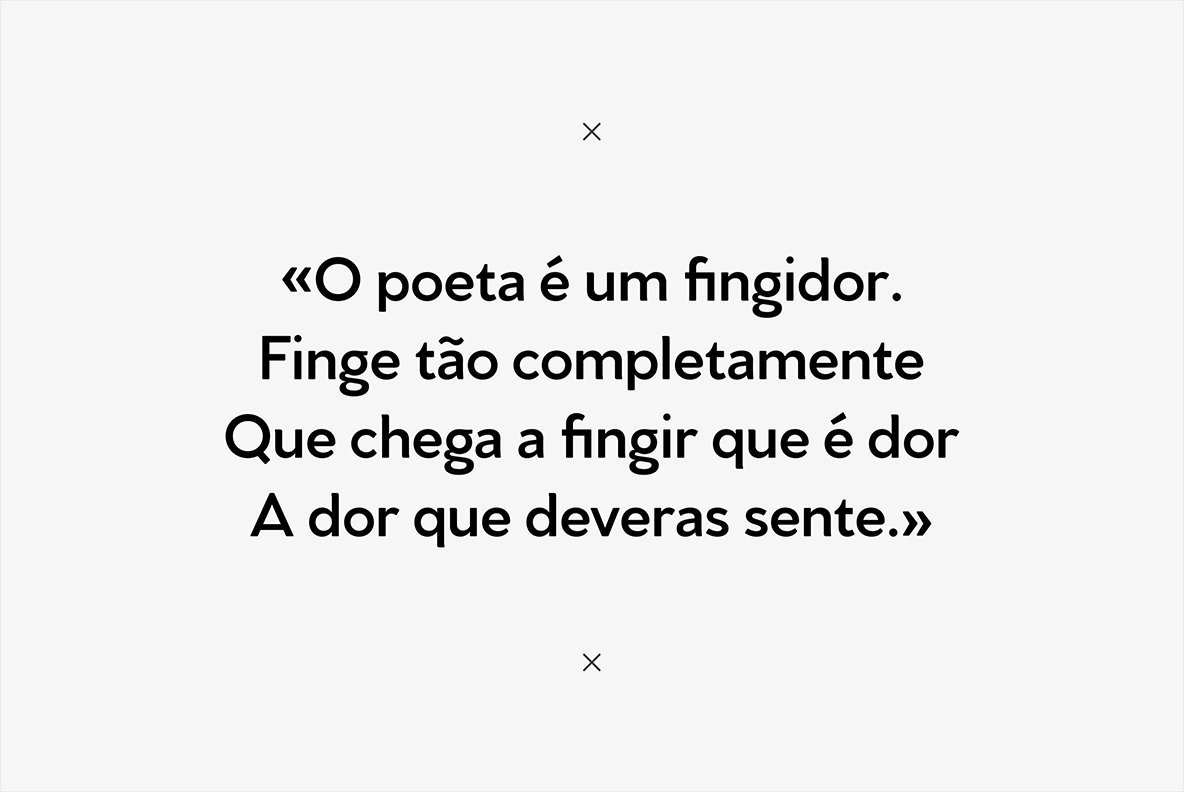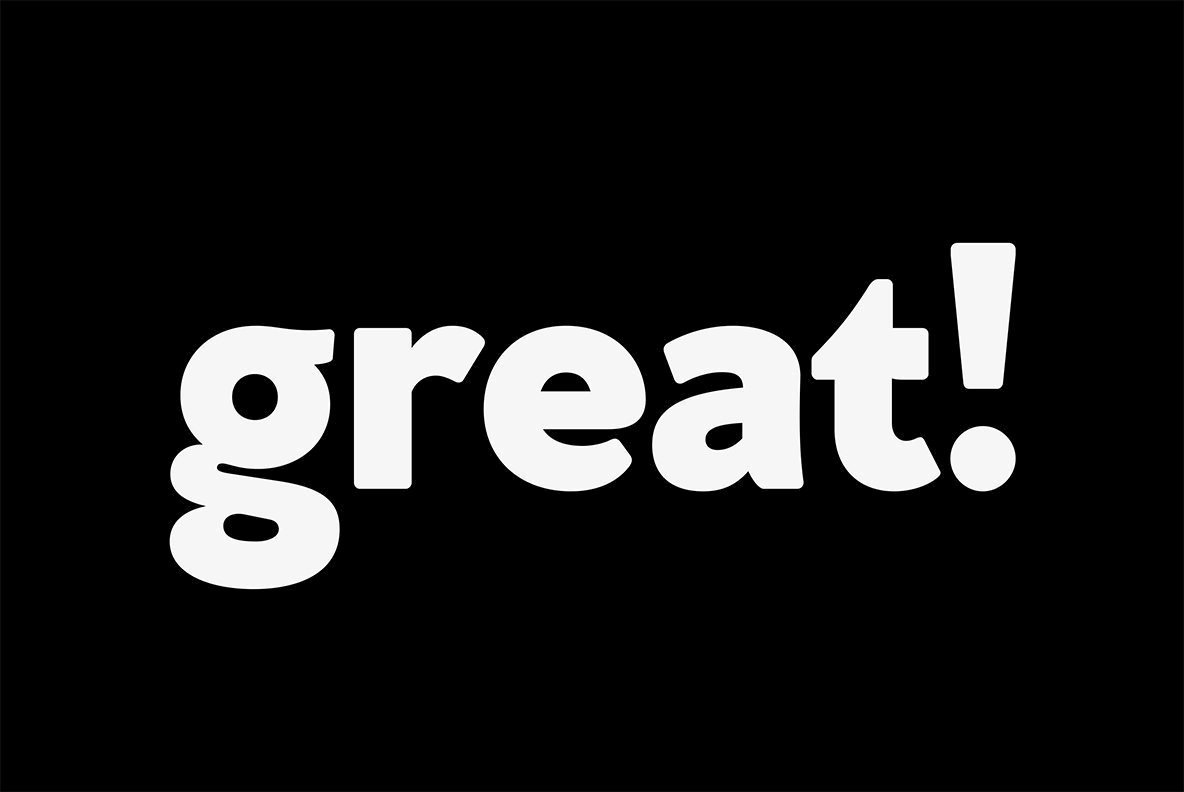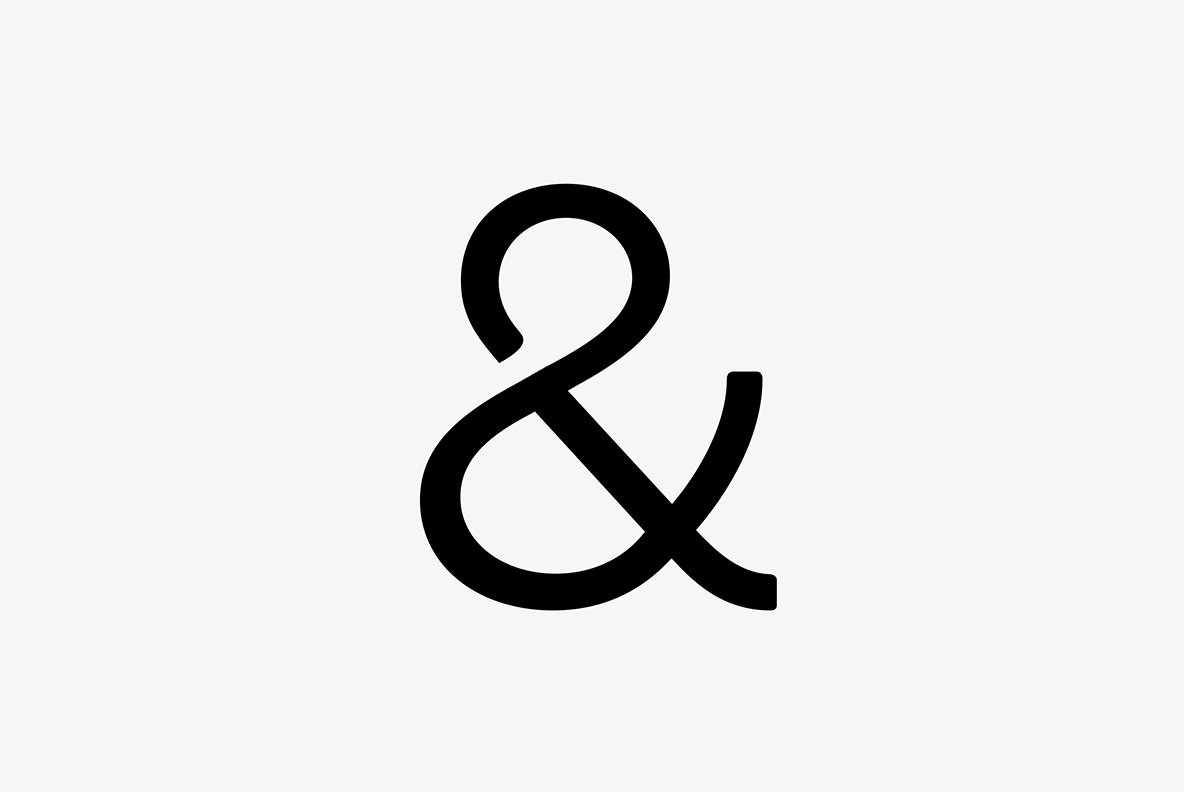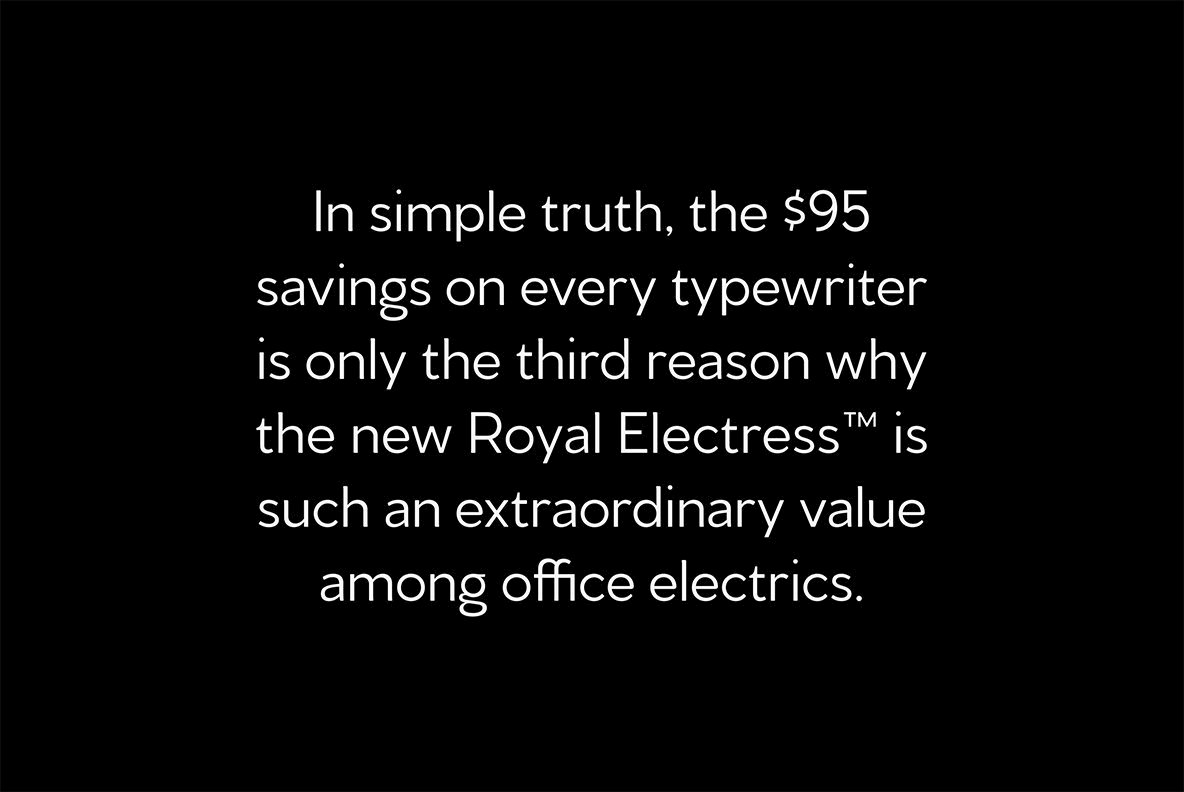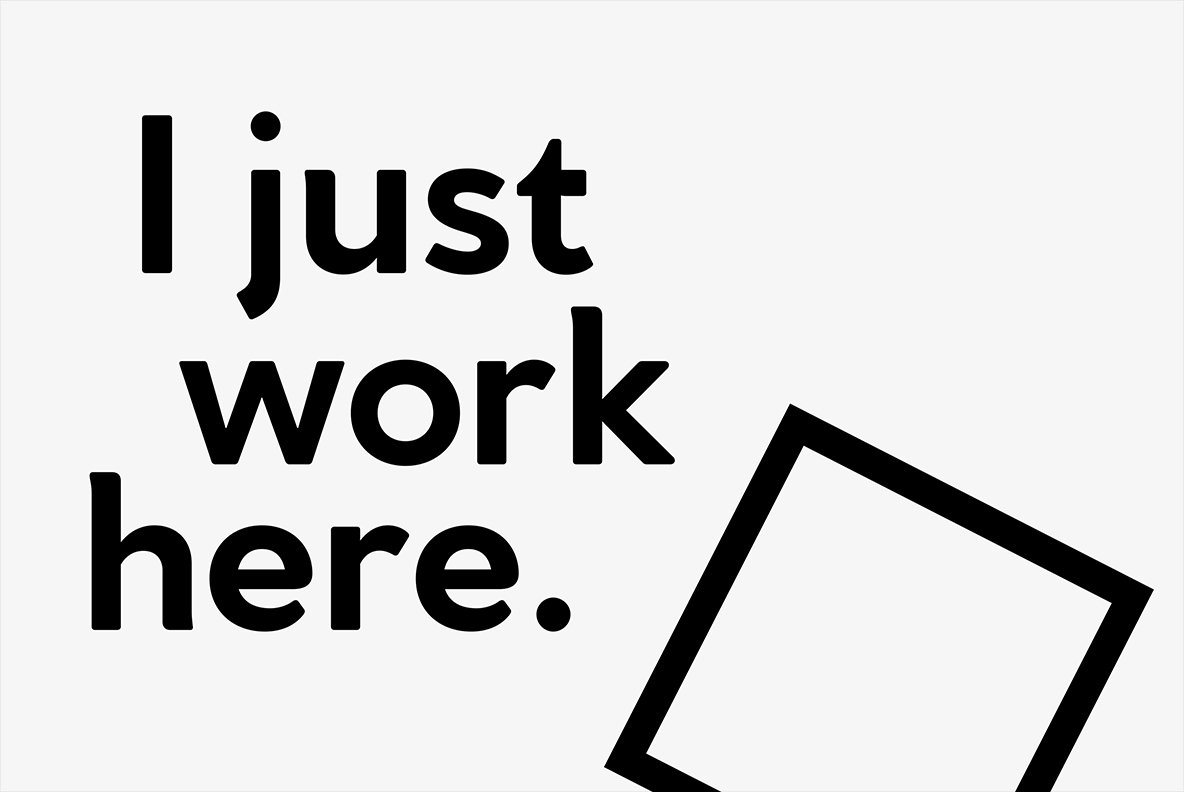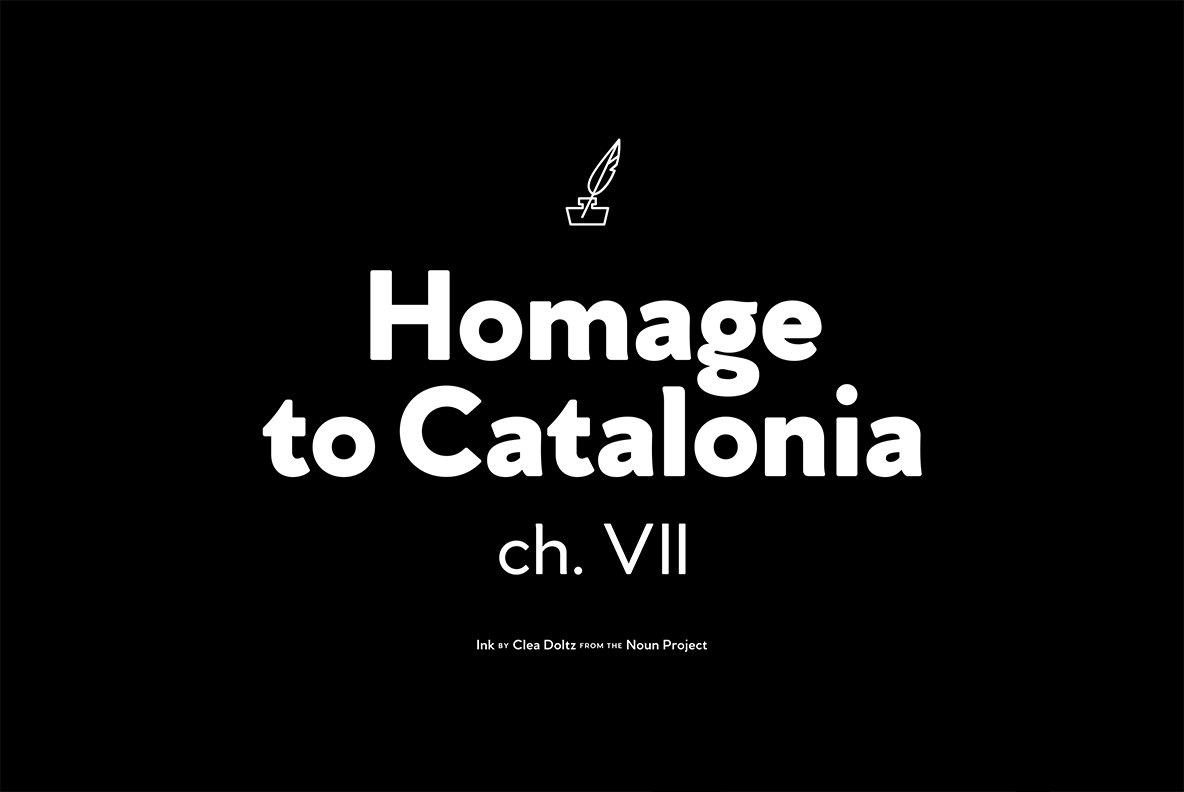
Venti CF Font
Venti is a geometric font family with a warm, engaging character. Inviting and versatile, Venti's subtle imperfections and human tone make it great for headlines, quotes and short text. The new version 4 update brings a host of refinements and improvements to a classic typeface. Features - 8 weights and obliques - Latin and Cyrillic scripts - OpenType features (ligatures, oldstyle & tabular numerals, fractions) - Free updates and bug fixes
This major update features a host of refinements and improvements to a classic typeface, including a new weight, redrawn glyphs, redone obliques, cleaner construction, and better kerning.
Venti has been updated with a number of small but helpful improvements. The entire typeface has been refined to be easier to read, drawn more consistently, and built more soundly. Adjustments have been made to letterform construction, kerning, and more.